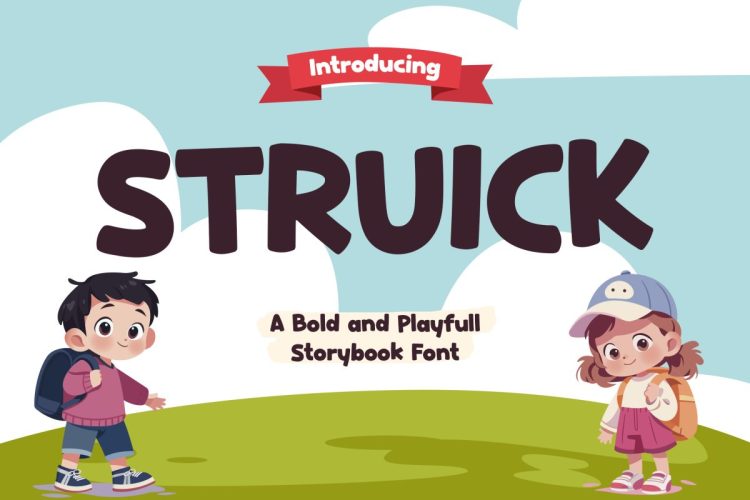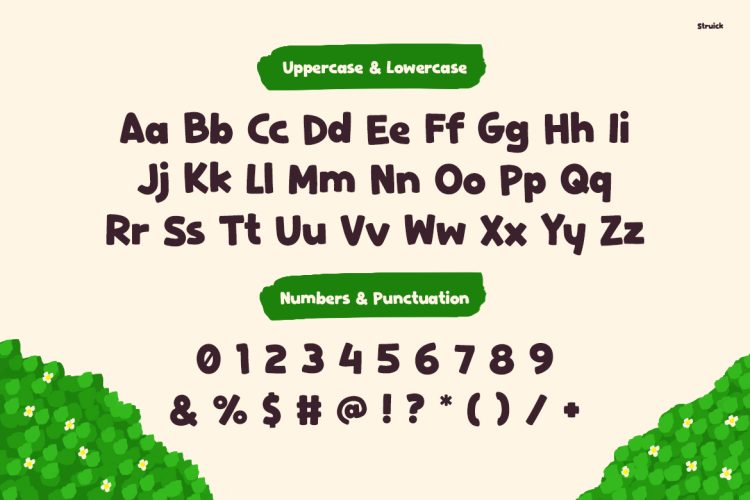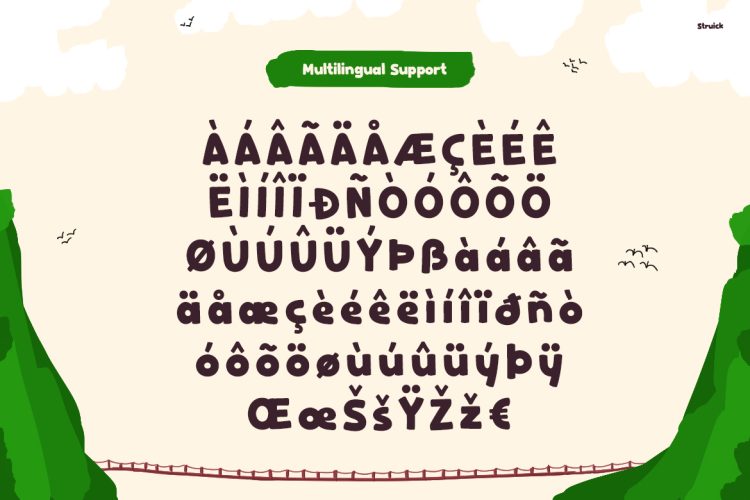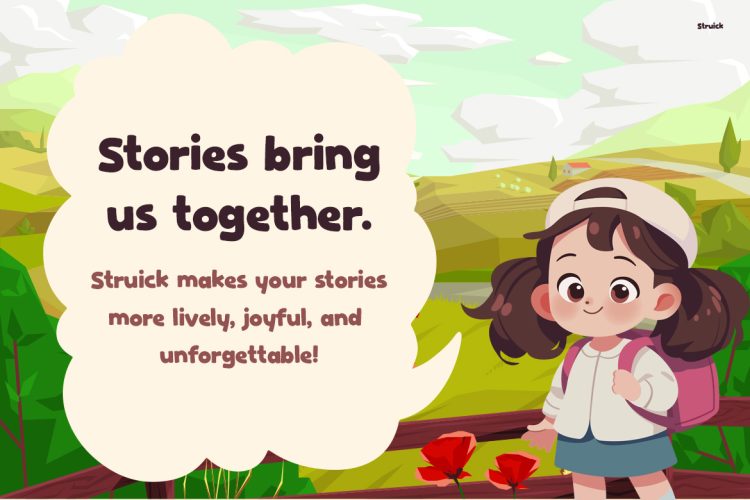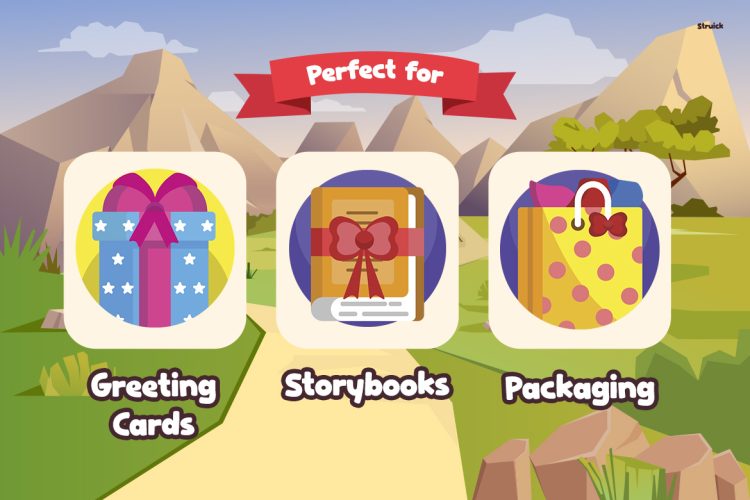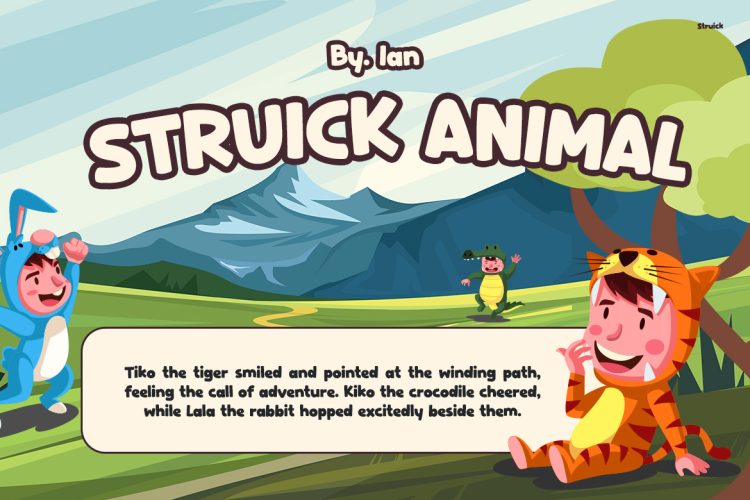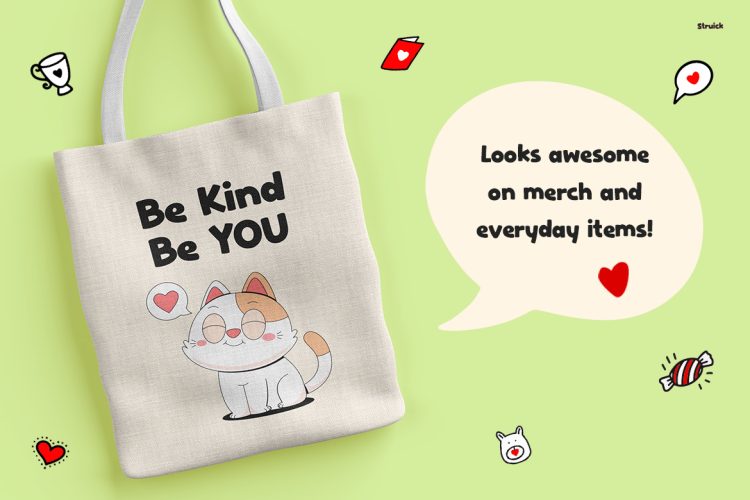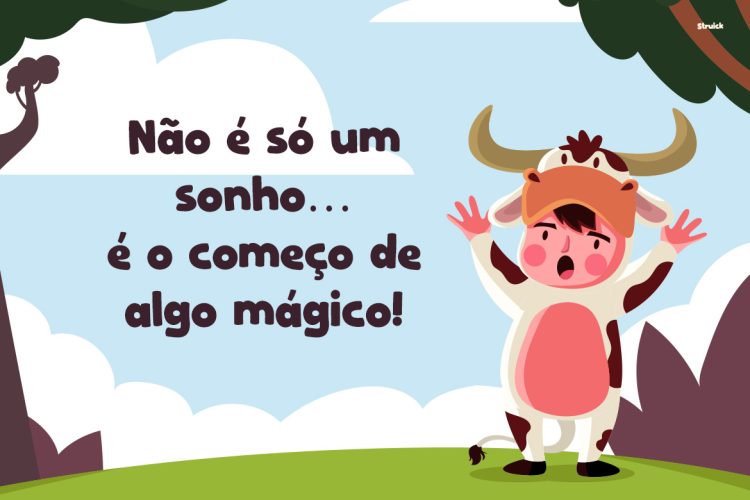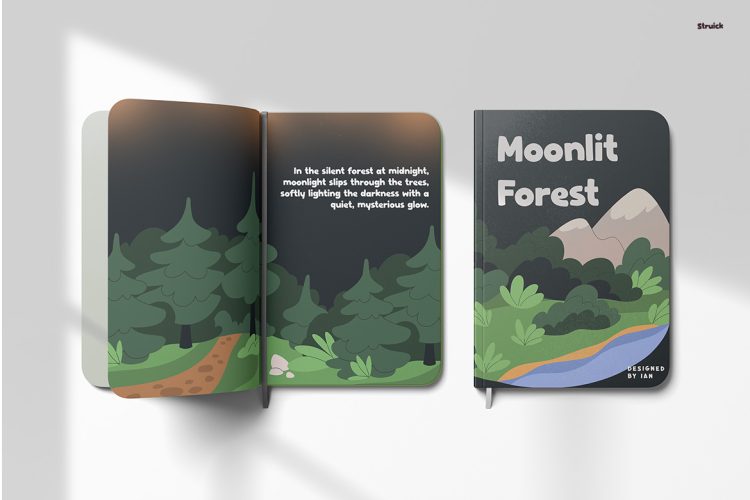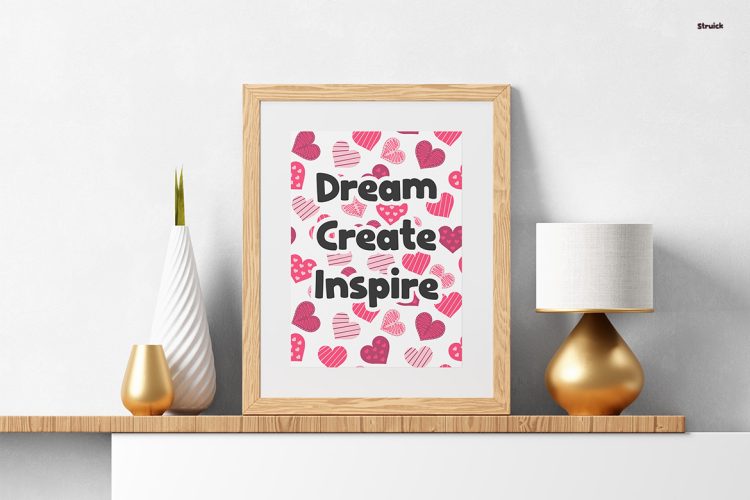
Struick โ Playful Kids Font Full of Joy & Imagination
Kids Font Struick bursts with cheerful energy, bringing a fun, bubbly personality into every letter. Its rounded shapes, cute proportions, and lively style instantly create a friendly and approachable look. Moreover, the playful design keeps everything easy to read, while at the same time adding a sense of movement and happiness. As a result, it feels perfect for storytelling, kidsโ visuals, and bright creative projects. In addition, with multilingual support for 67 languages, Struick lets your joyful ideas connect with audiences everywhere.
Designed to Spark Smiles
Struick is crafted to make every design feel fun and engaging. For example, it shines on storybooks, greeting cards, packaging, and playful branding. Furthermore, its soft curves and cartoon-like charm make it ideal for colorful layouts and imaginative themes. Consequently, your designs feel more alive, warm, and inviting. In other words, this font helps turn simple text into delightful visual moments kids will love.
Who Is It Perfect For?
Therefore, Kids Font Struick is a great choice for childrenโs book authors, educators, toy brands, and designers. Additionally, it works beautifully for kidsโ merchandise, school materials, posters, and social media content. Whether youโre creating fun packaging or cute illustrations, this font adapts easily. Ultimately, it gives your project a joyful, friendly voice that stands out.